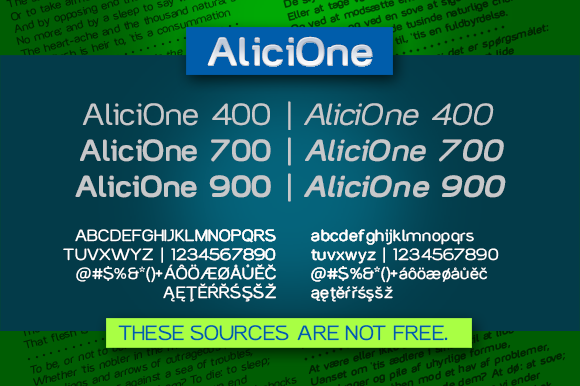
AliciOne font
AliciOne is a family sans serif, which aims to merge the modern with the classic, thus creating an option more "technological", current, merging with the traditional. With its light and harmonious design values the work, allowing the designer can use it in various types of projects, their weights (400, 700, 900) give this possibility. To those who liked, I wish good work and success. This source is not free, sales only in creativemarket.com